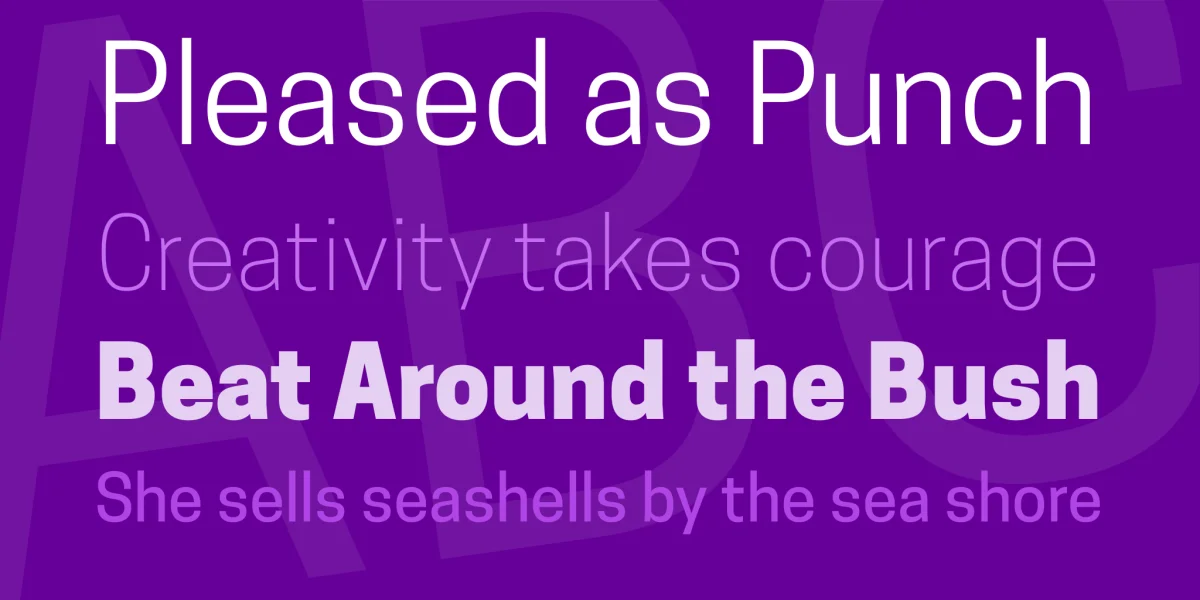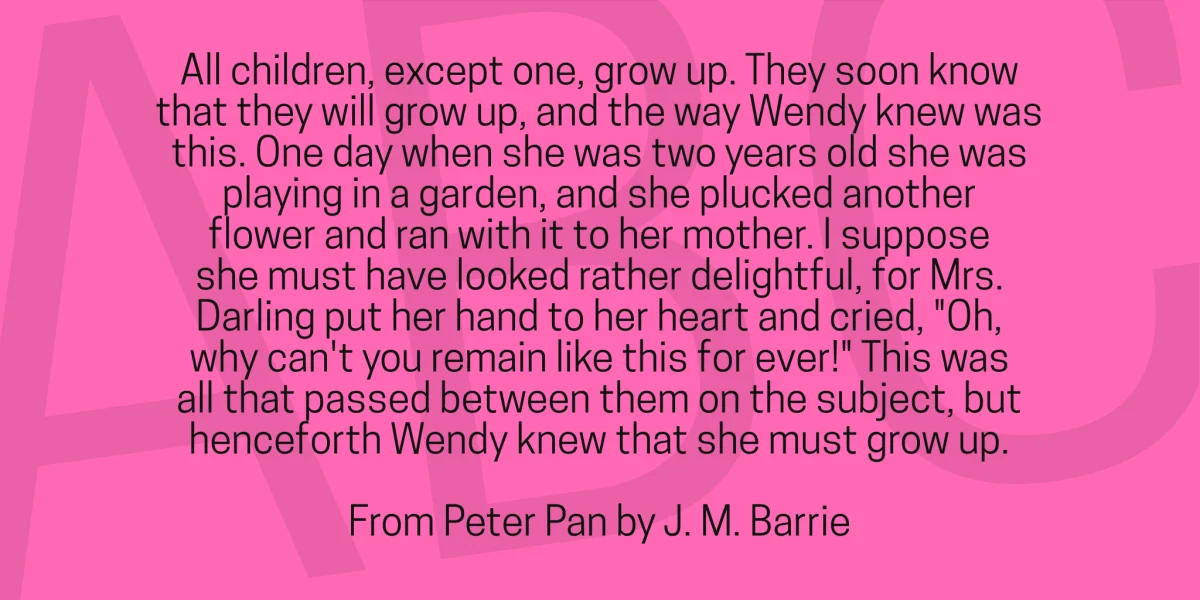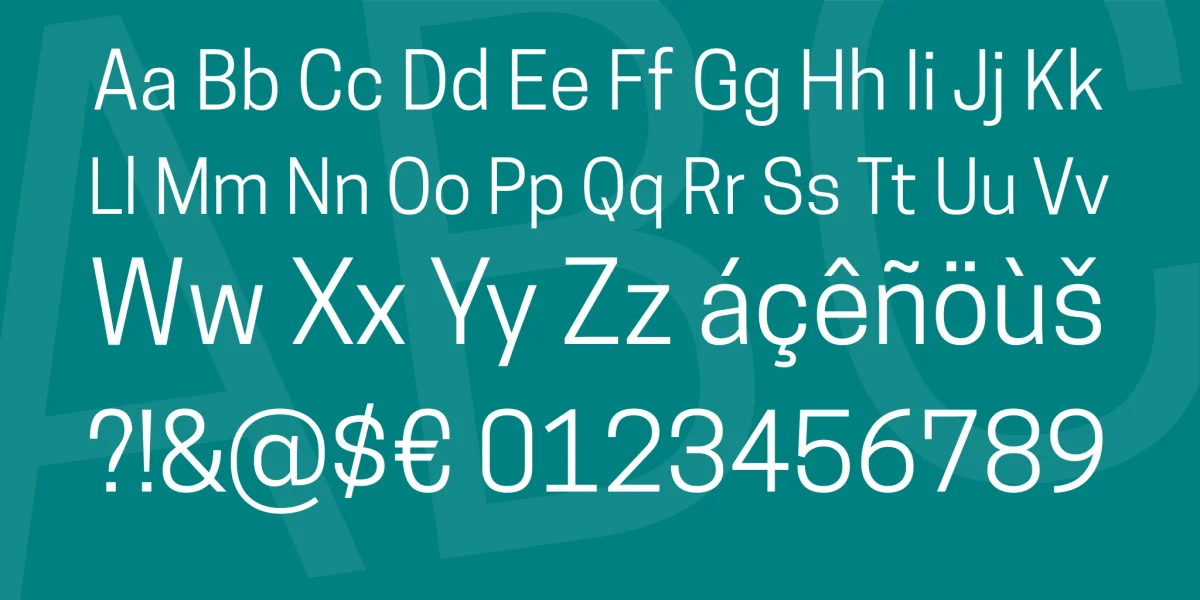
Cooper Hewitt Font Family
Designed by Cooper Hewitt
The new typeface, Cooper Hewitt, is a contemporary sans serif, with characters composed of modified-geometric curves and arches. Initially commissioned by Pentagram to evolve his Polaris Condensed typeface, Chester Jenkins created a new digital form to support the newly transformed museum.
“Developing this typeface specifically for Cooper Hewitt has been enormously gratifying,” said Jenkins. “Instead of building on the Polaris structures, I drew everything from scratch, using the existing forms as a rough guide for letter widths and master-stroke thicknesses.”